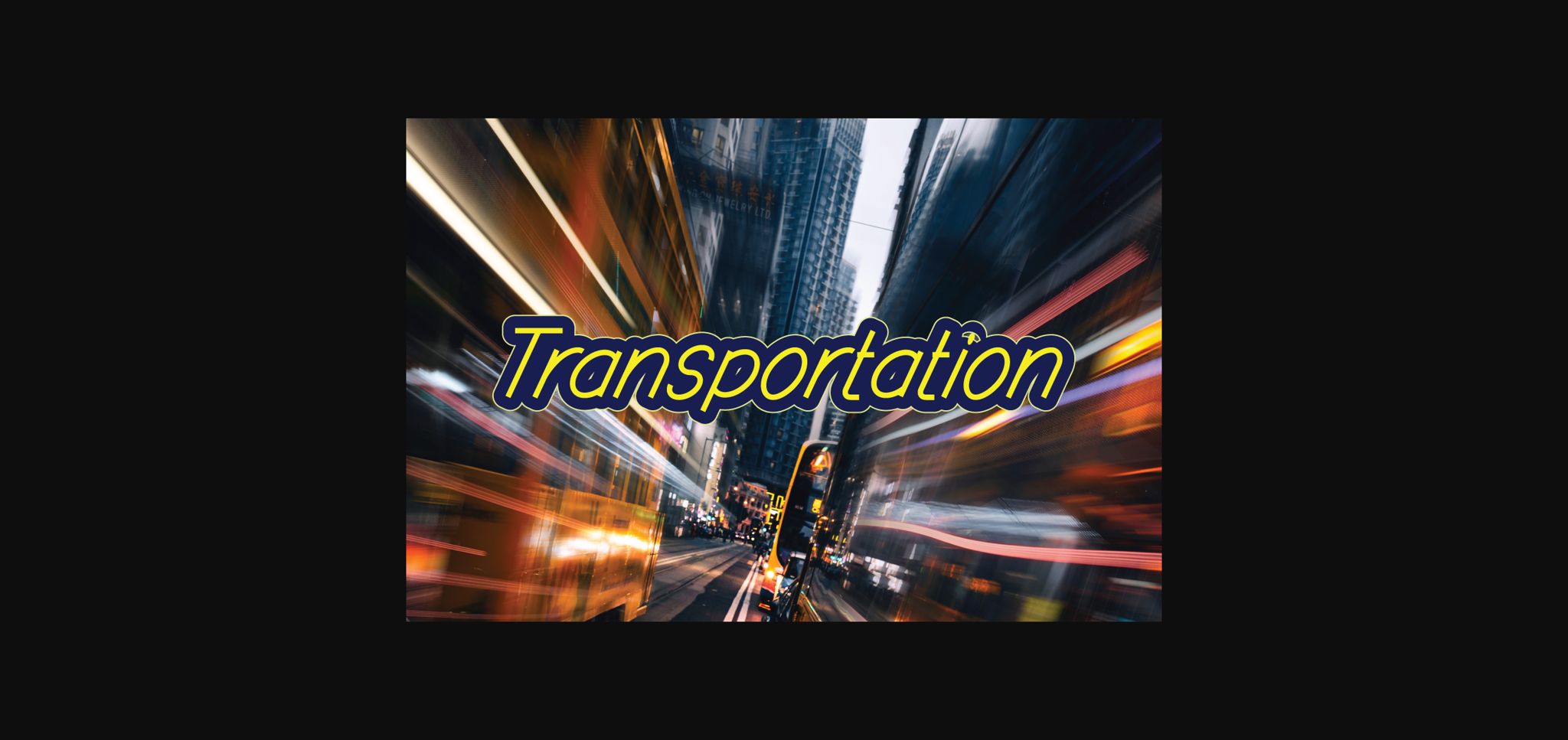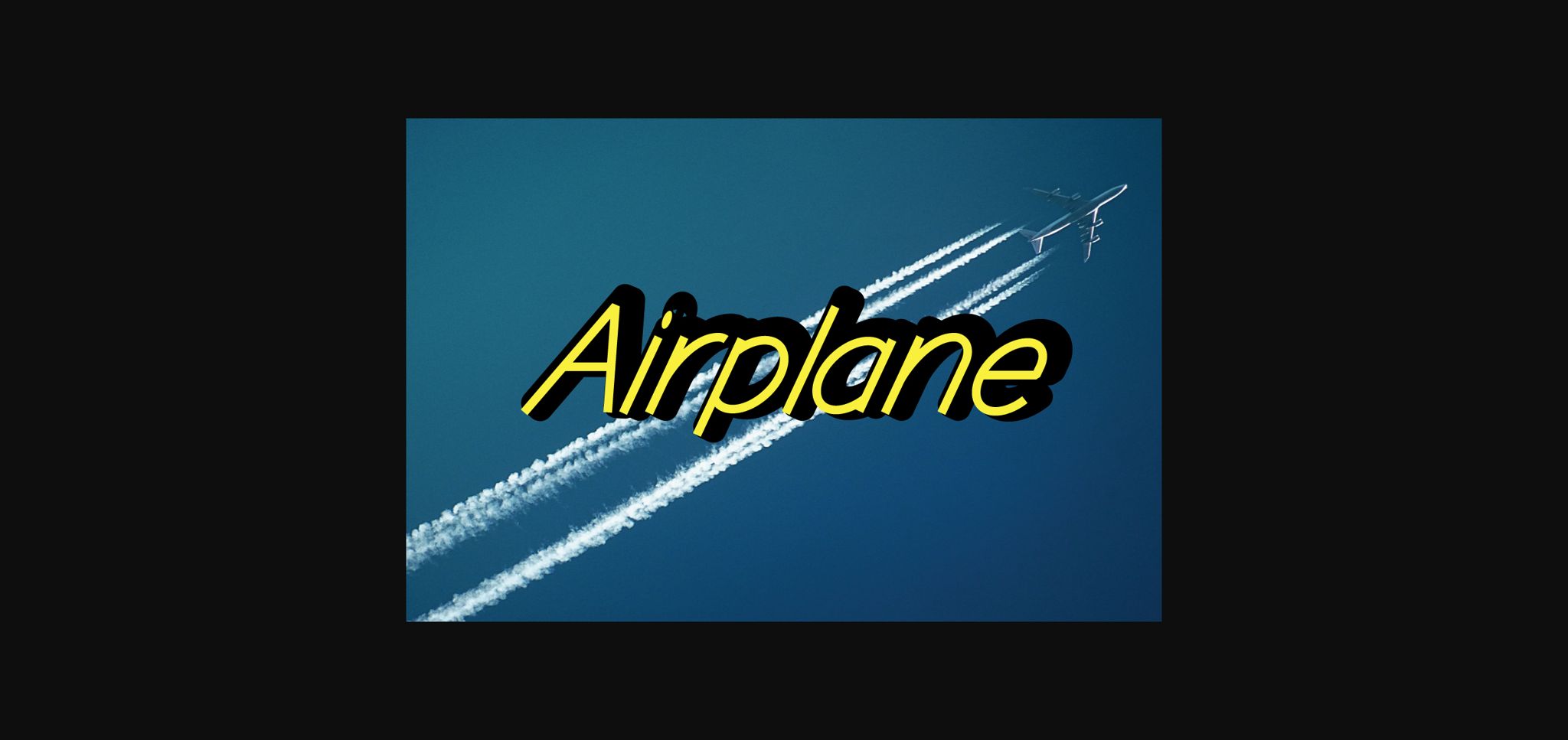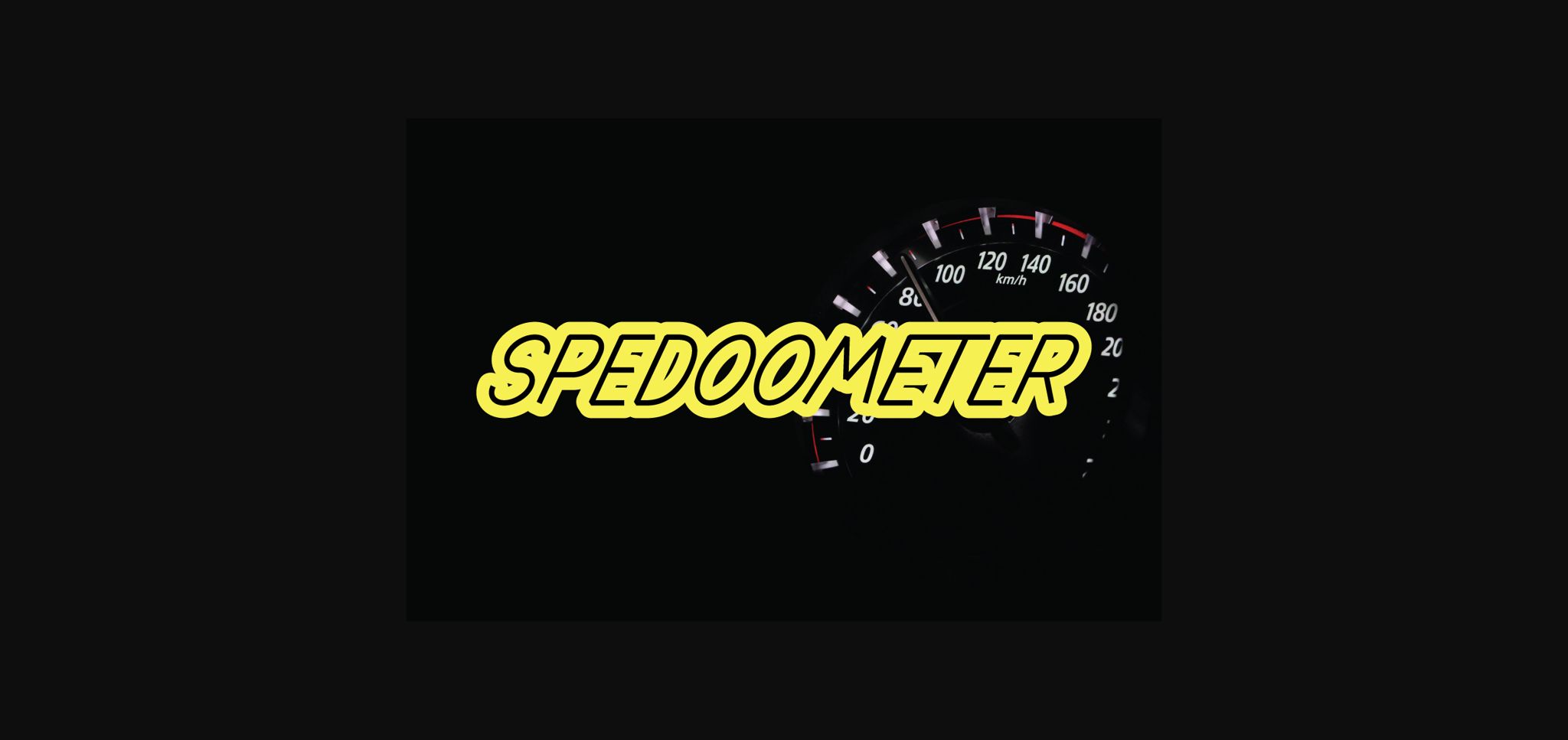
Transportation Font
About Transportation Font
Transportation is an incredibly simple and neat sans serif font. It is suitable for any branding, product packaging, invitation, quote, t-shirt, label, poster, logo that you wish to develop.